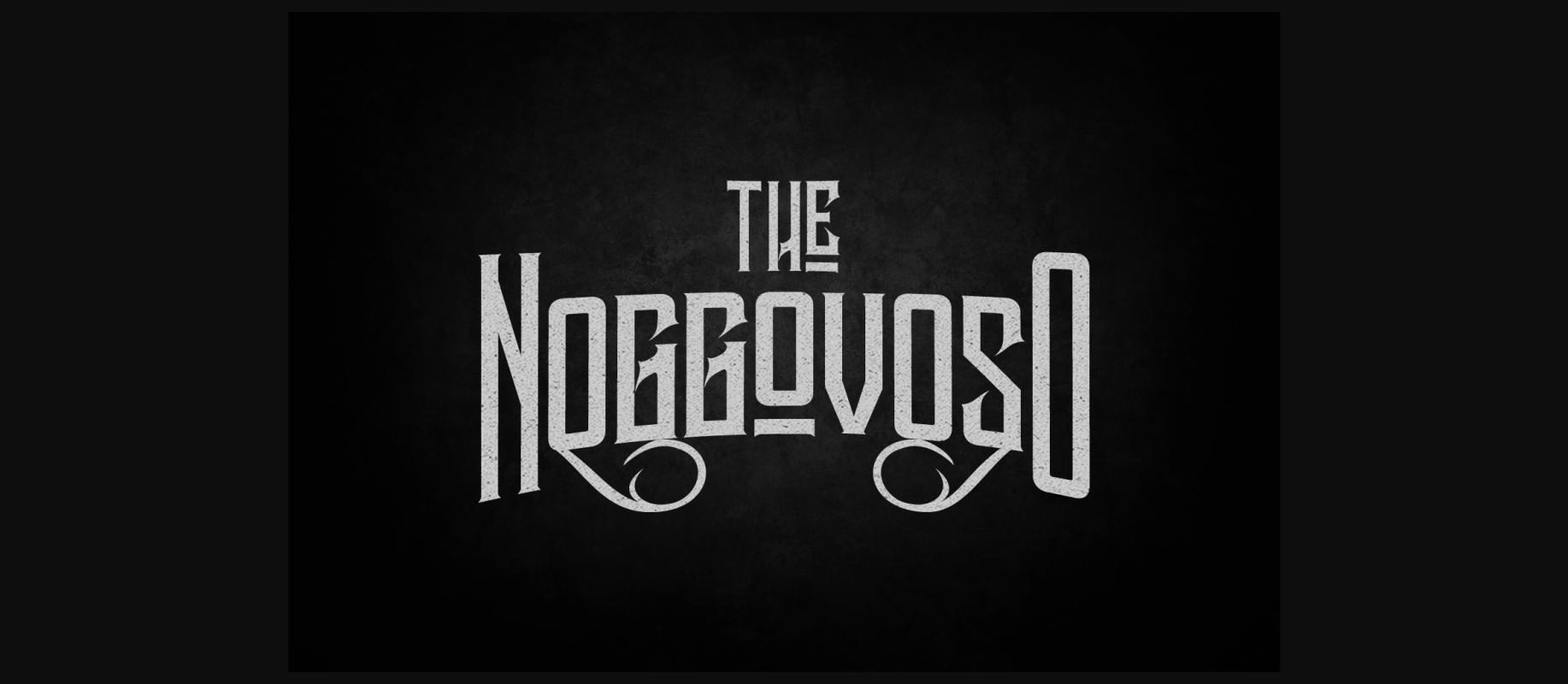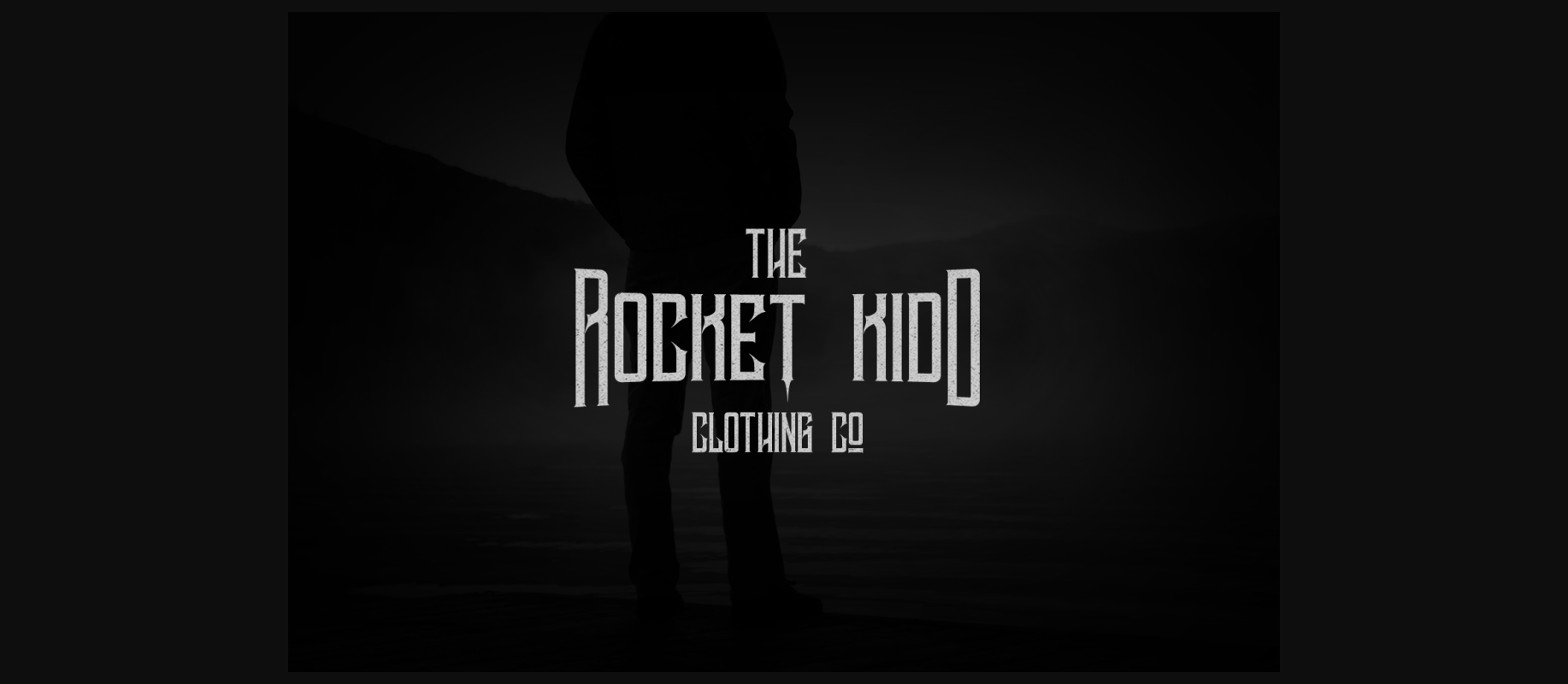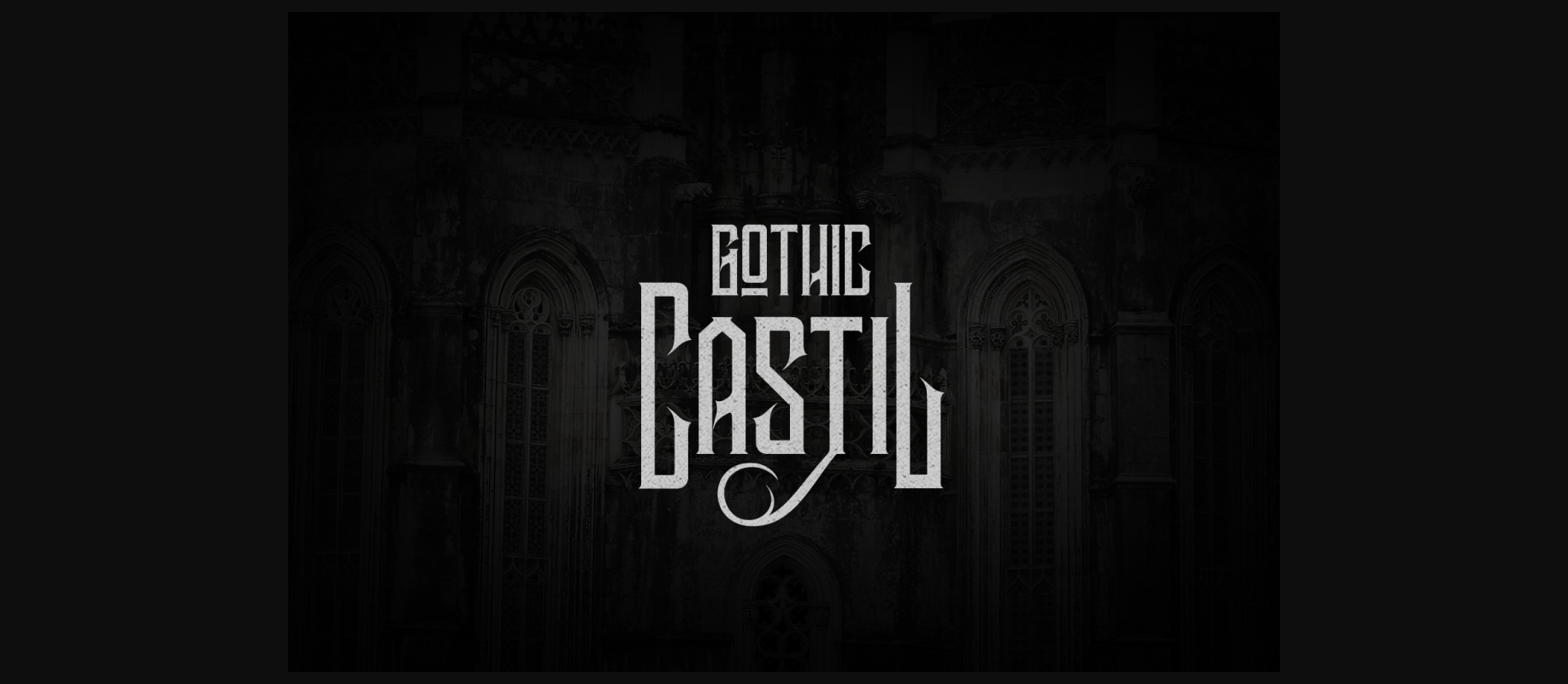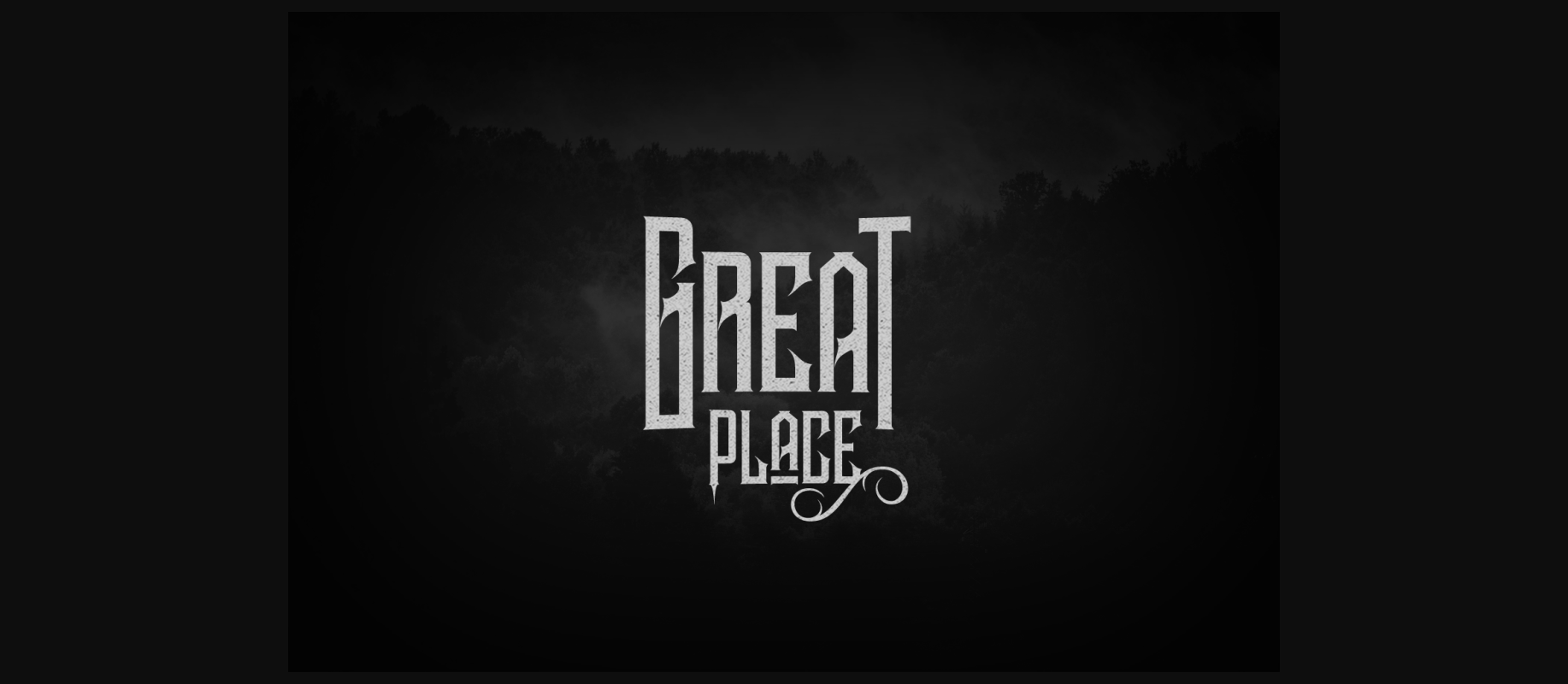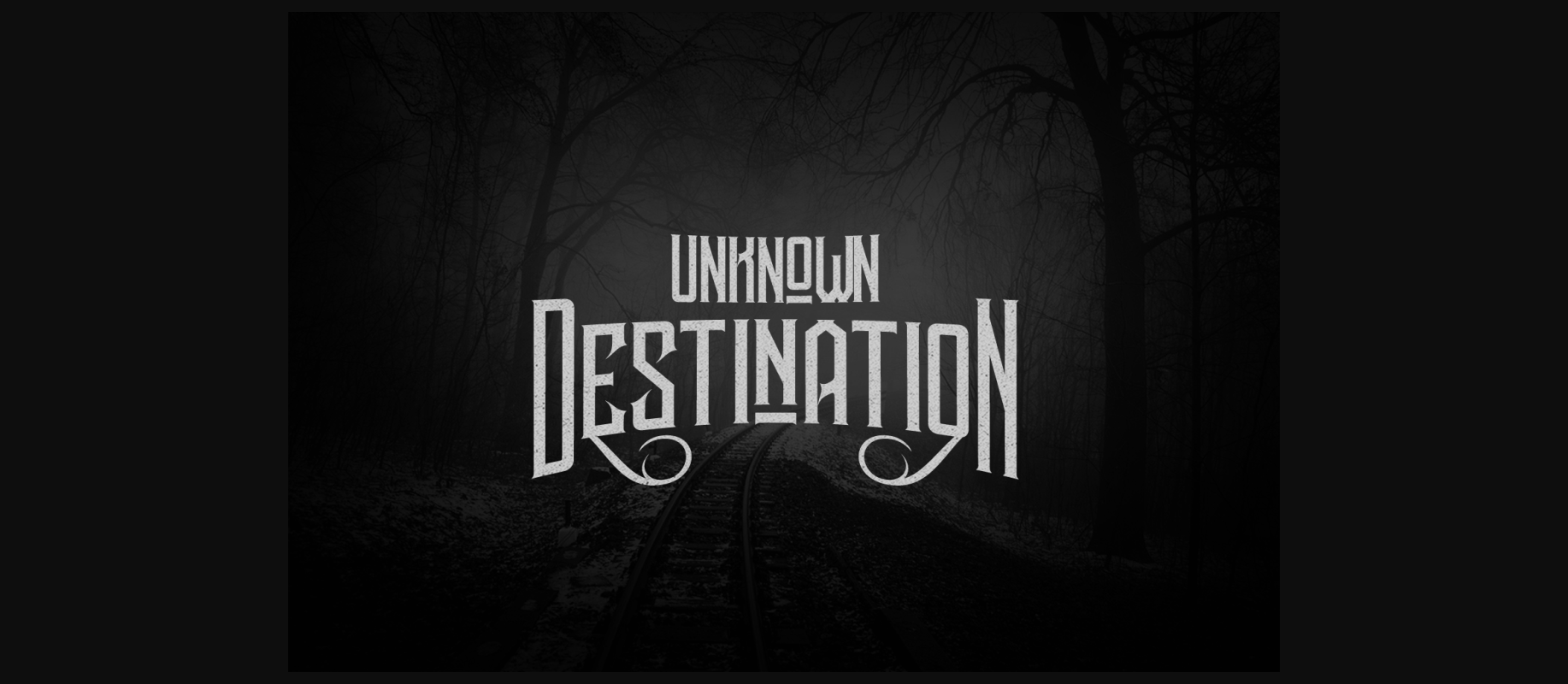
Noggovoso Font
About Noggovoso Font
Noggovoso is a stunning decorative typeface inspired by gothic and Victorian style, so you have the best of moody and retro design. This font comes with tons of character alternates and swashes so you can create mesmerizing designs that are suitable for headlines, displays, and logotype creation.